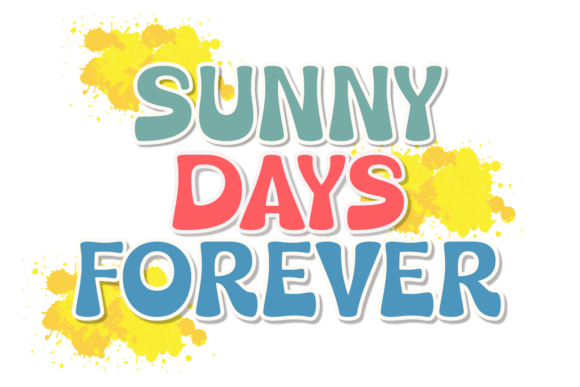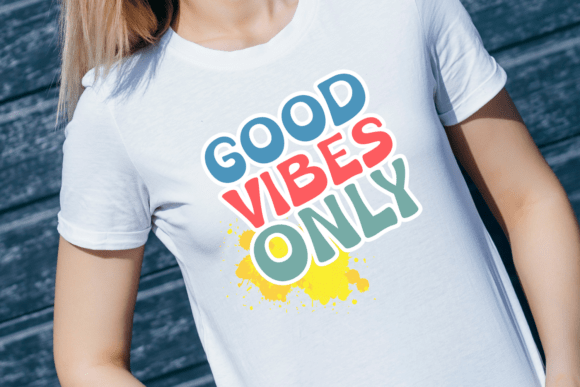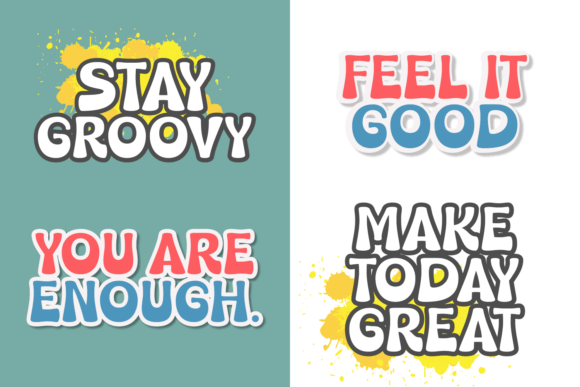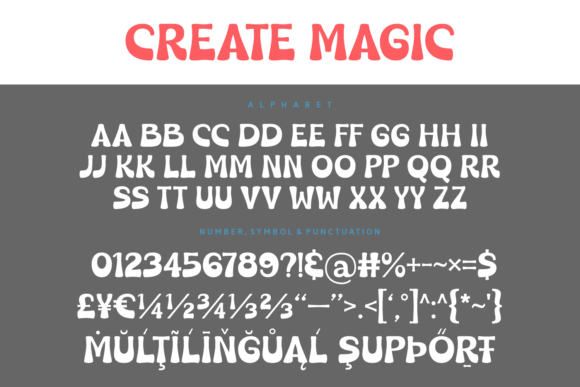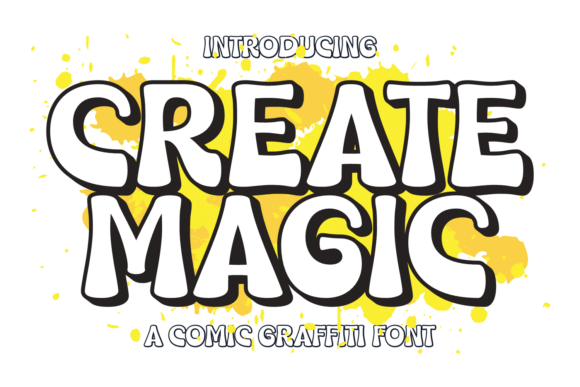
Unleash the Magic: Discover the Enchanting Allure of “Create Magic” Font
Are you tired of using the same old fonts for your designs? Look no further! Introducing “Create Magic,” a versatile and captivating font that’s perfect for adding a touch of whimsy and magic to your projects. This bold and striking font is ideal for crafting display text, graffiti-style messaging, and whimsical cartoon drawings that will leave a lasting impression on your audience.
The Perfect Font for Display Text and Logo Designs
“Create Magic” is engineered to make a statement. Its bold and eye-catching aesthetic makes it perfect for logo designs, comic fonts, and promotional materials that require a font that can command attention. Whether you’re designing a logo, brochure, or product packaging, this font delivers bold visual statements that will set your work apart from the crowd.
Endless Possibilities with “Create Magic”
The versatility of “Create Magic” lies in its extensive range of font combinations, from regular fonts to captivating capitals. The rich collection of numbers and punctuation further amplifies the possibilities of your designs. With this font, you can create a wide range of designs, from playful and fun to bold and dramatic.
Bring Your Brand Story to Life
“Create Magic” embodies the essence of your brand story through its compelling imprint. Its lively cartoon style is perfect for designers and crafters who want to add a touch of personality to their work. Whether you’re creating a brand identity, advertising materials, or product packaging, this font will help you connect with your audience and leave a lasting impression.
A Multipurpose Font for Every Project
“Create Magic” is designed to be a multipurpose font that can be used for a wide range of projects. Its irresistibly catchy style makes it perfect for:
- Display text and headlines
- Graffiti-style messaging and street art
- Whimsical cartoon drawings and illustrations
- Logo designs and branding
- Comic fonts and graphic novels
- Promotional materials and advertising
- Product packaging and labeling
Why Choose “Create Magic”?
So why choose “Create Magic” font for your next project? Here are just a few reasons:
- Unique and eye-catching design: “Create Magic” is a one-of-a-kind font that will set your work apart from the crowd.
- Versatile and multipurpose: This font can be used for a wide range of projects and applications.
- Easy to read and understand: Despite its bold and playful design, “Create Magic” is easy to read and understand, making it perfect for display text and headlines.
- High-quality and professional: This font is designed to deliver high-quality and professional results, making it perfect for designers and crafters who want to create stunning work.
Get Ready to Cast a Spell with “Create Magic”
In conclusion, “Create Magic” font is a game-changer for designers and crafters who want to add a touch of whimsy and magic to their work. Its bold and striking aesthetic, versatile design, and endless possibilities make it the perfect font for a wide range of projects and applications. Whether you’re designing a logo, brochure, or product packaging, “Create Magic” is sure to deliver bold visual statements that command attention. So why wait? Download “Create Magic” today and start creating magic in your designs!